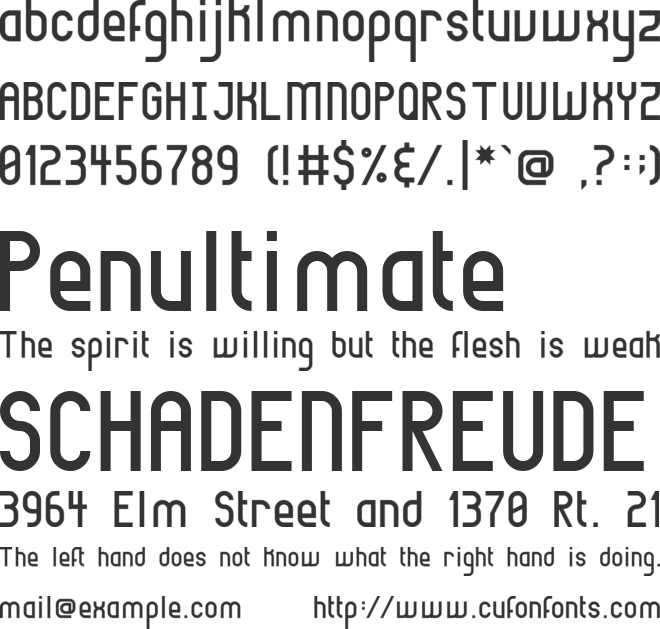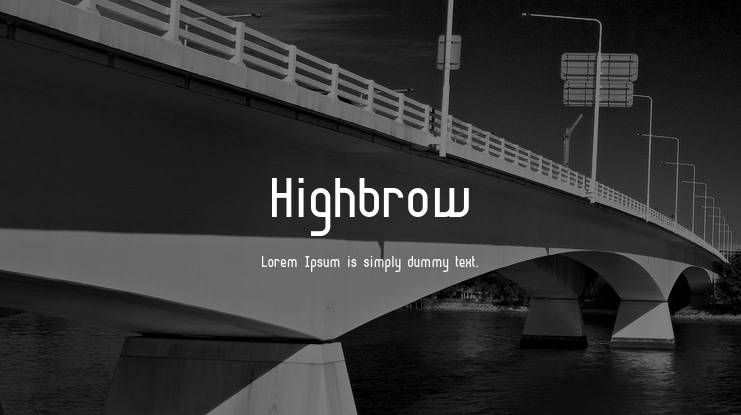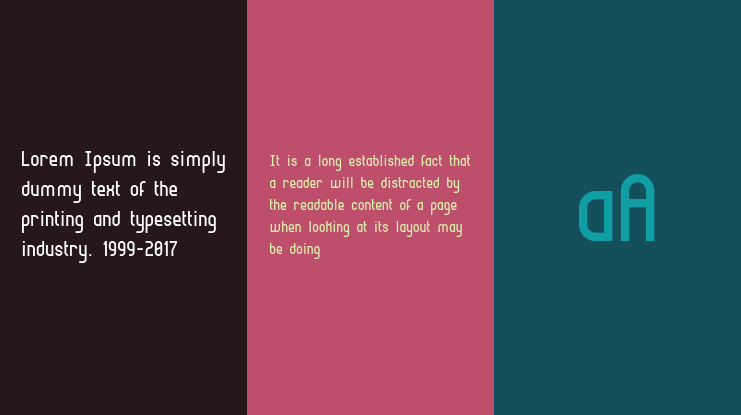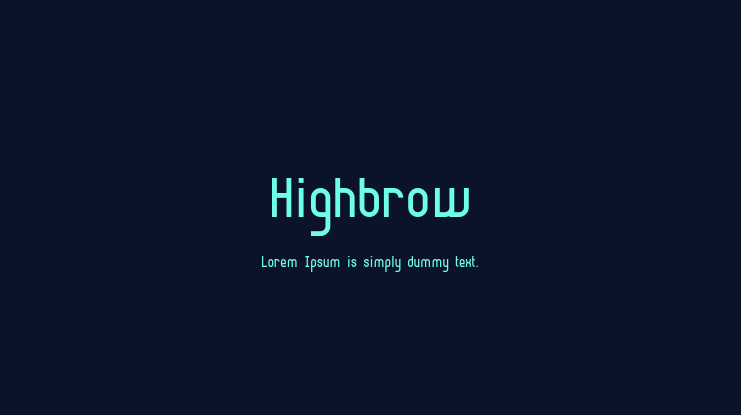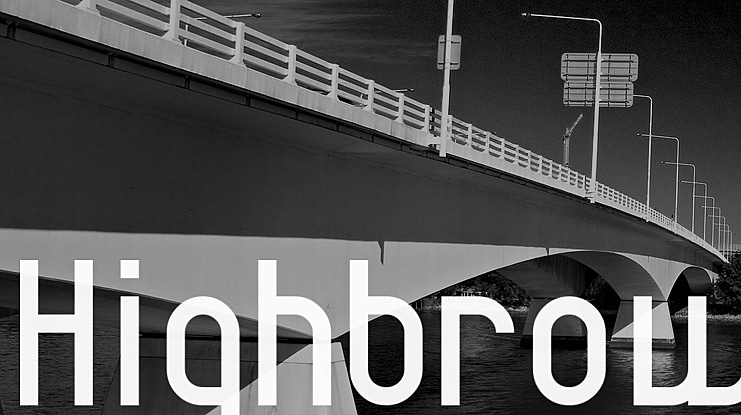
Highbrow Font
This is a font that I made called Highbrow. Highbrow is a simple and stylish font that looks good in many places. It is constantly being updated with new characters and symbols as time goes on.